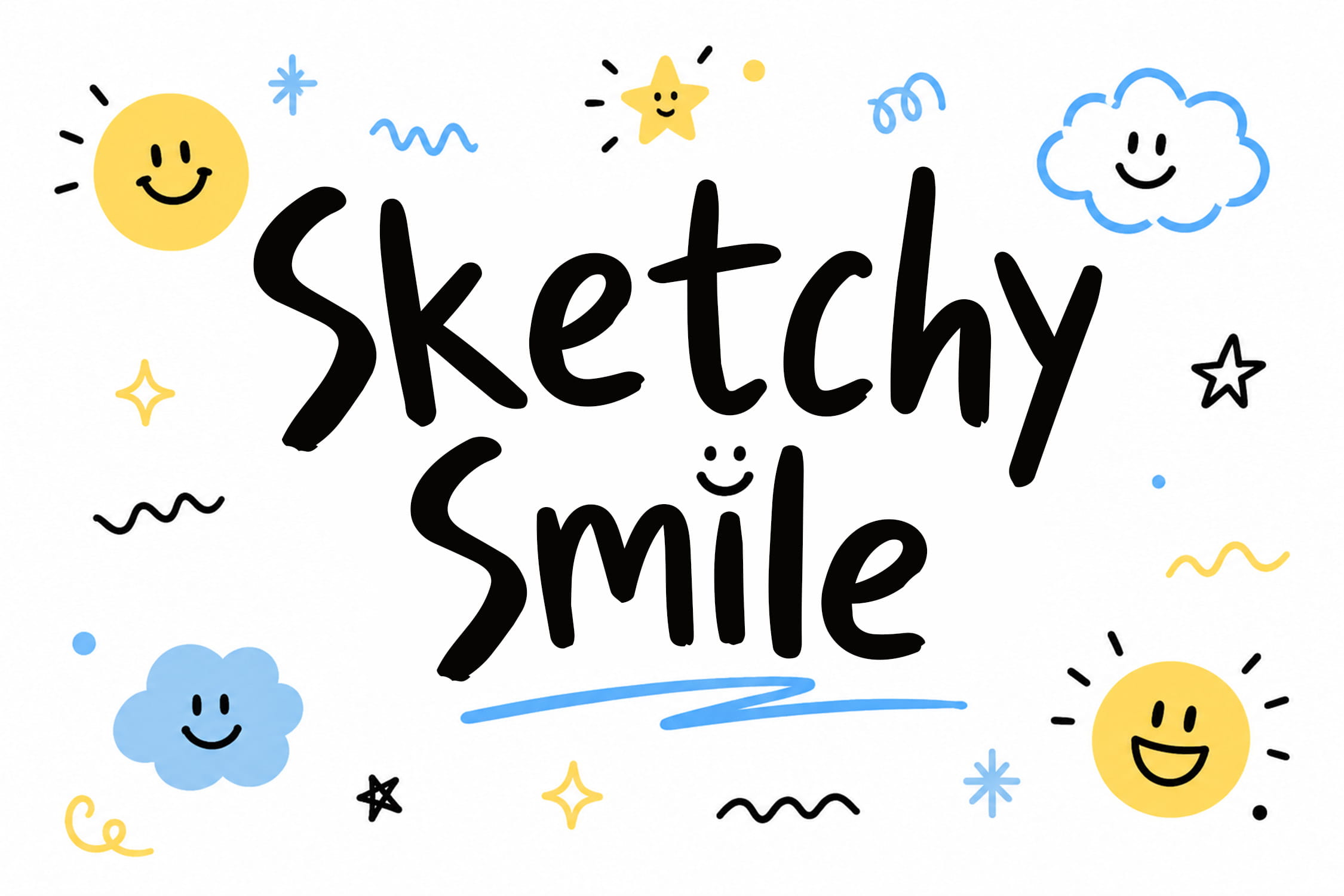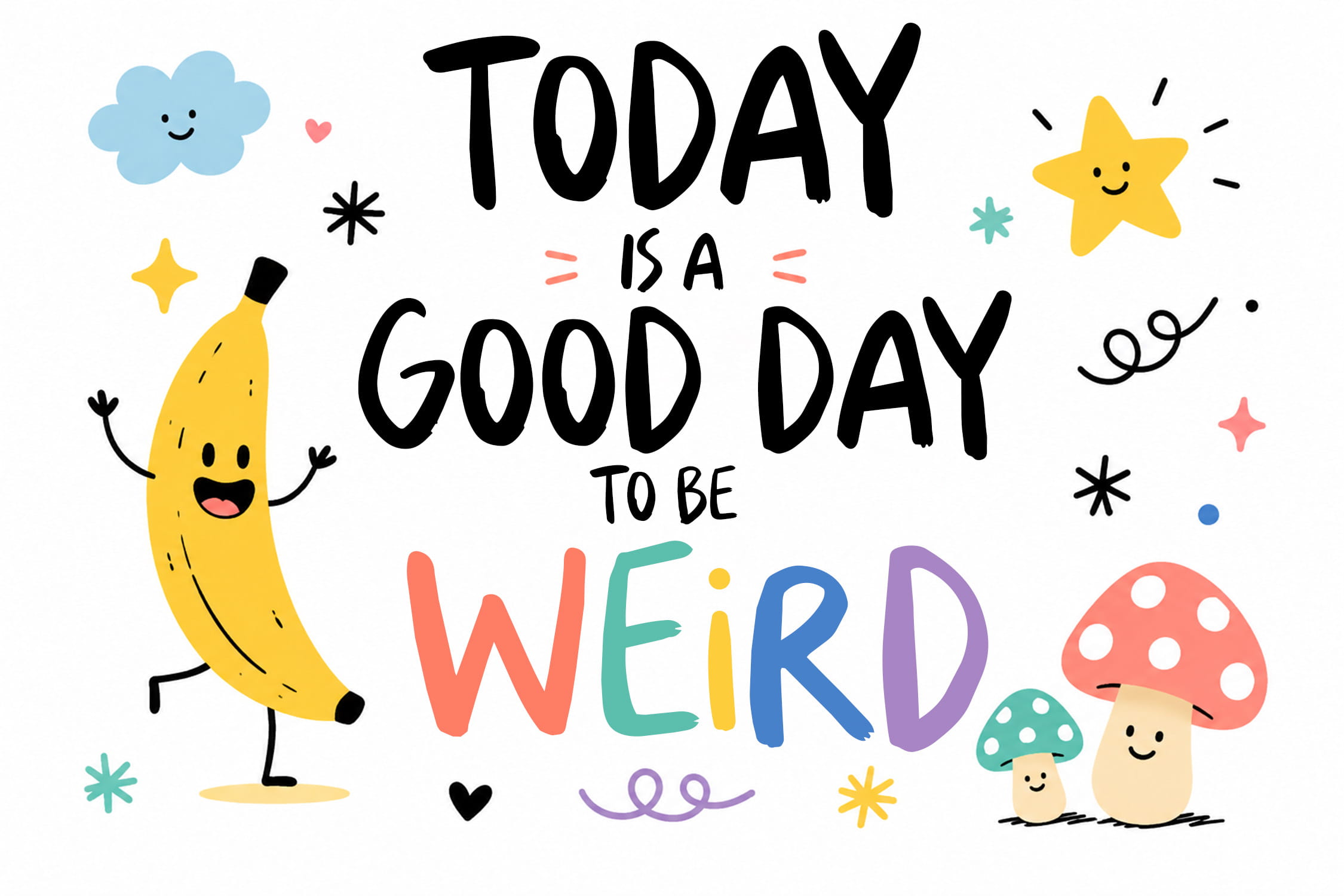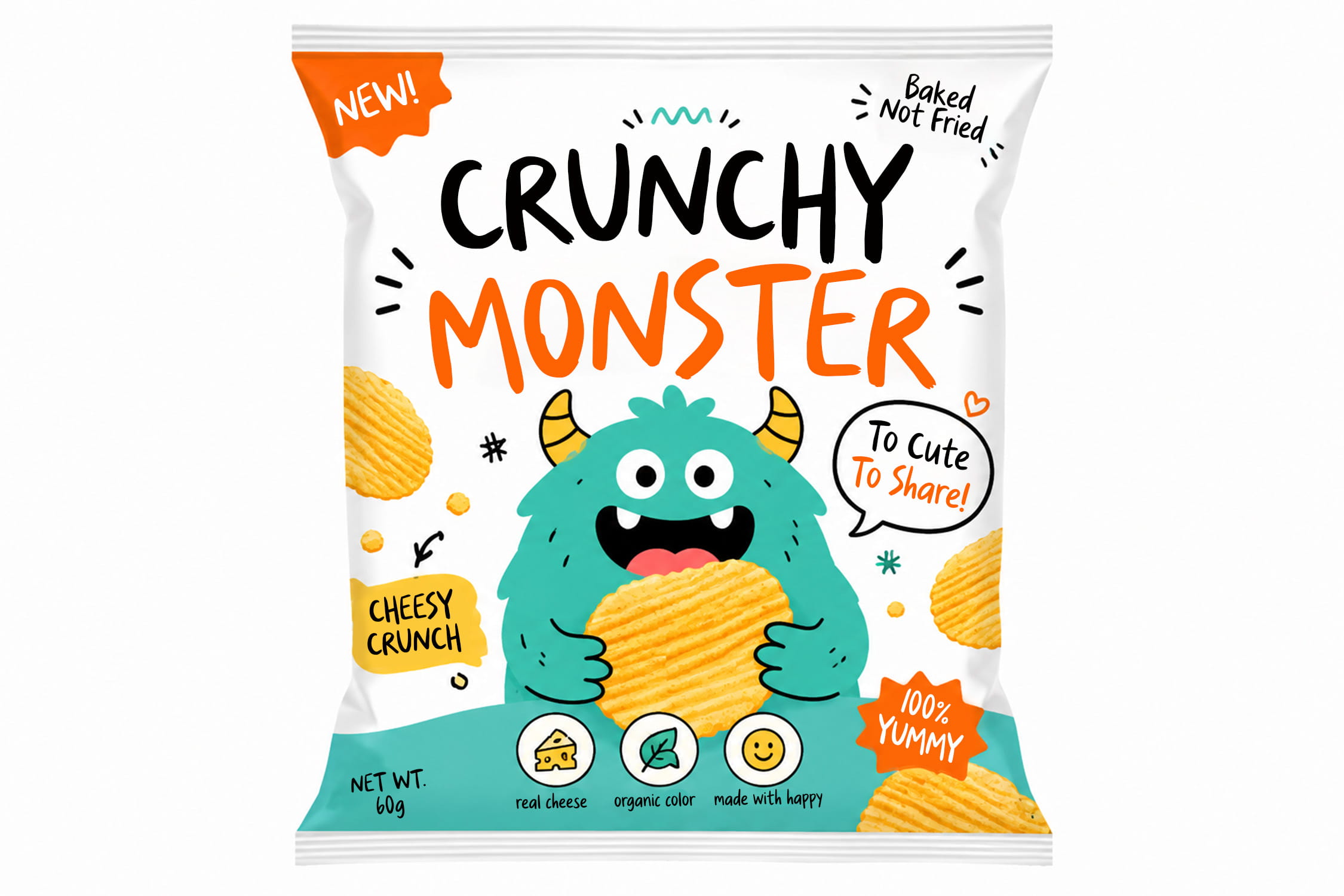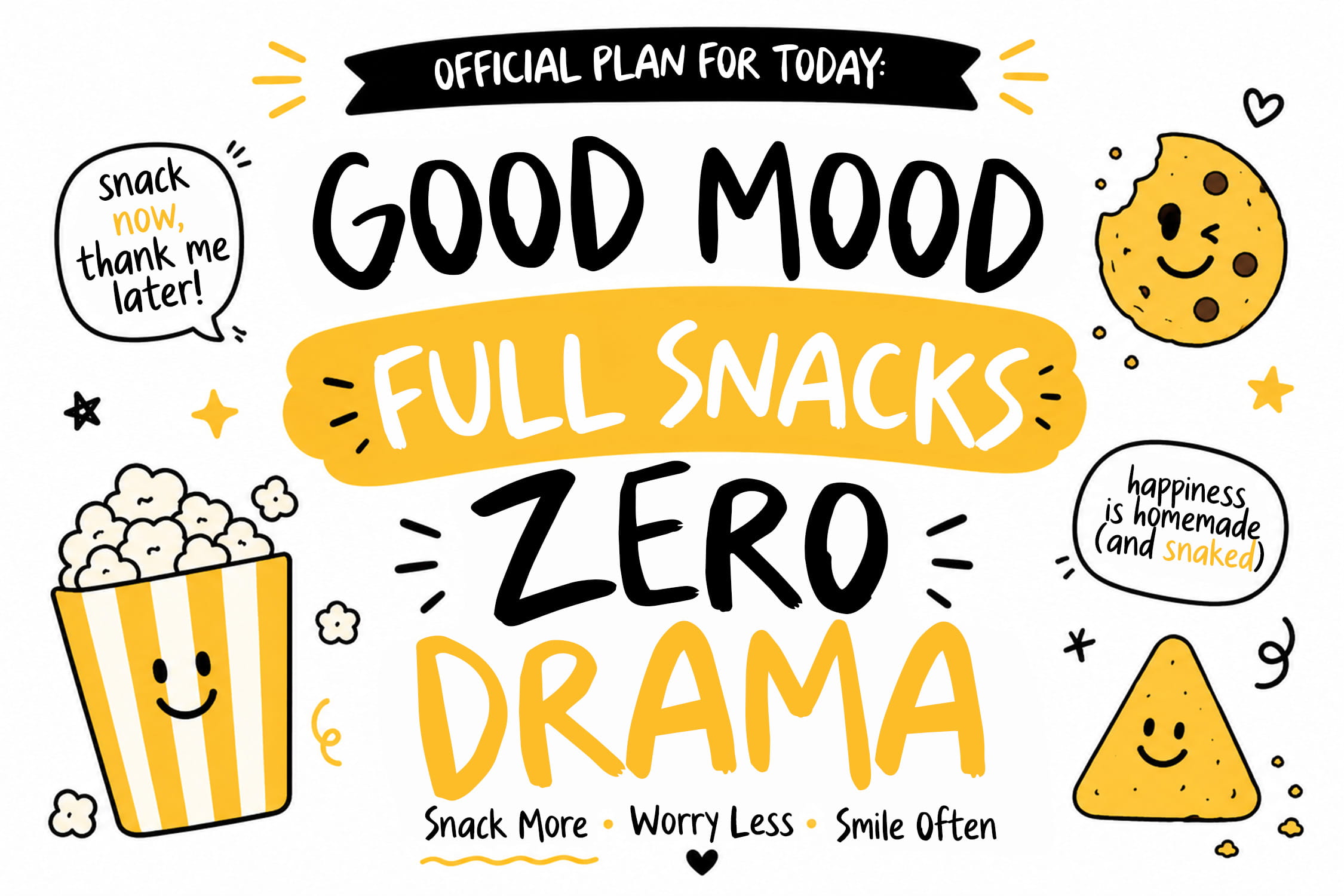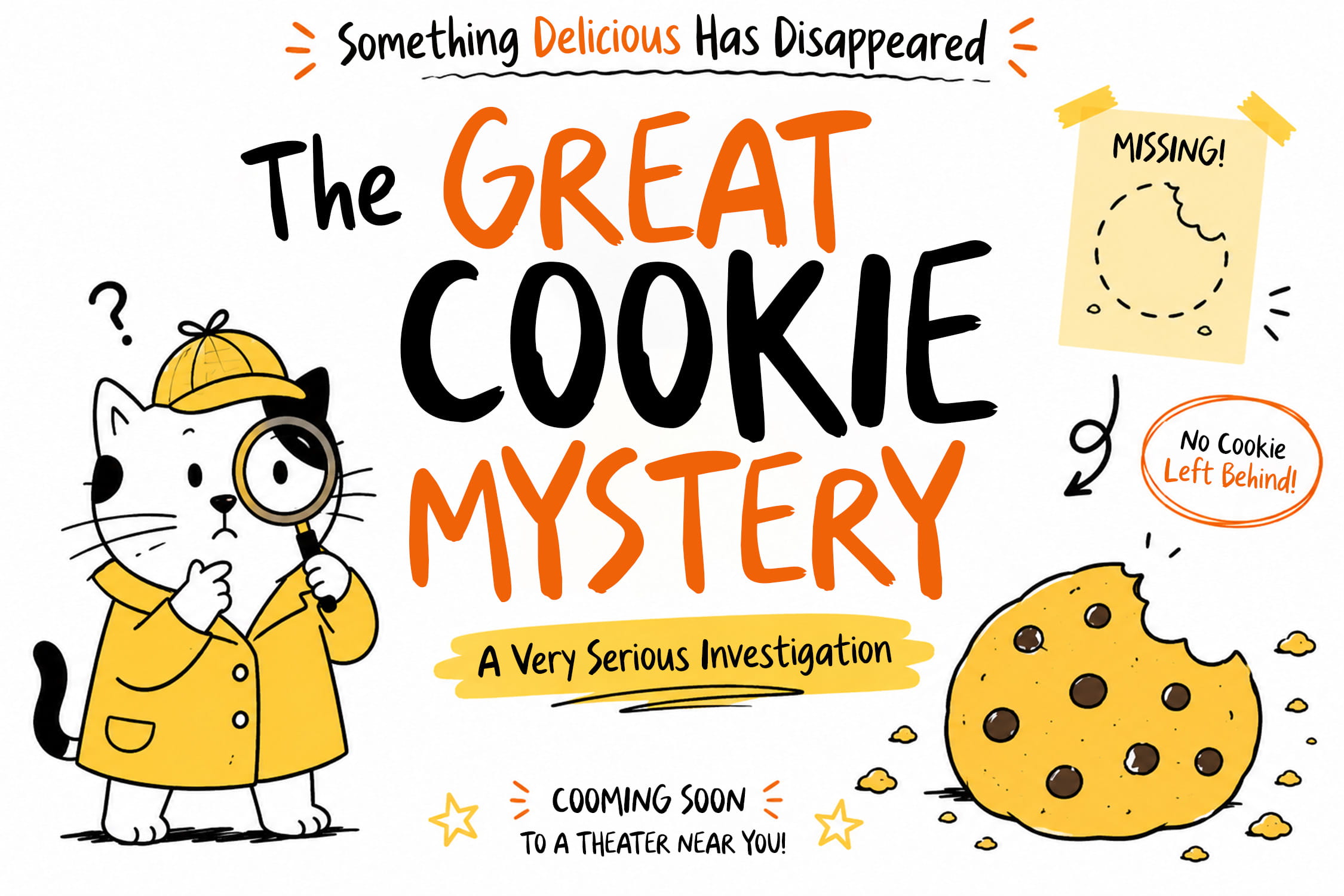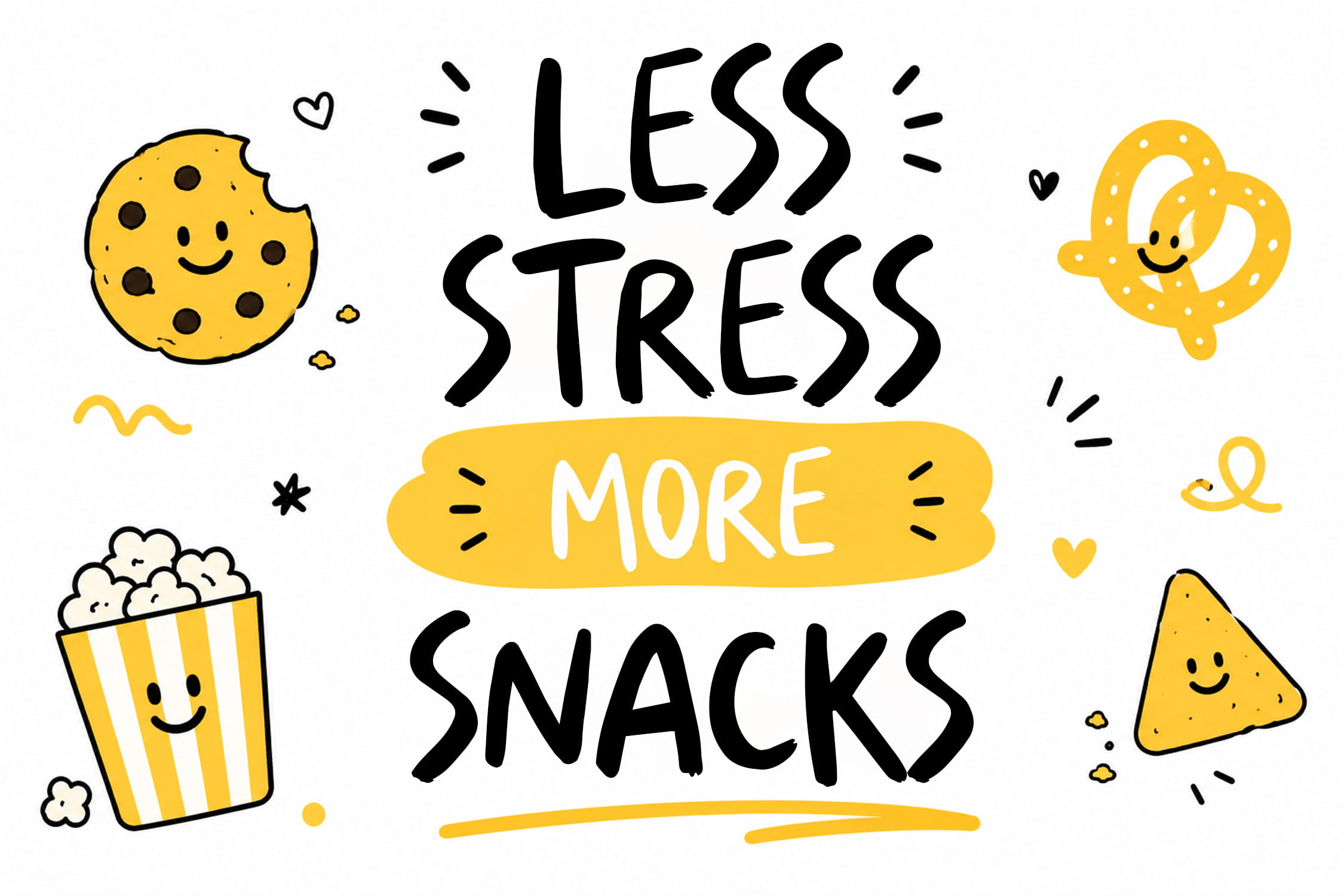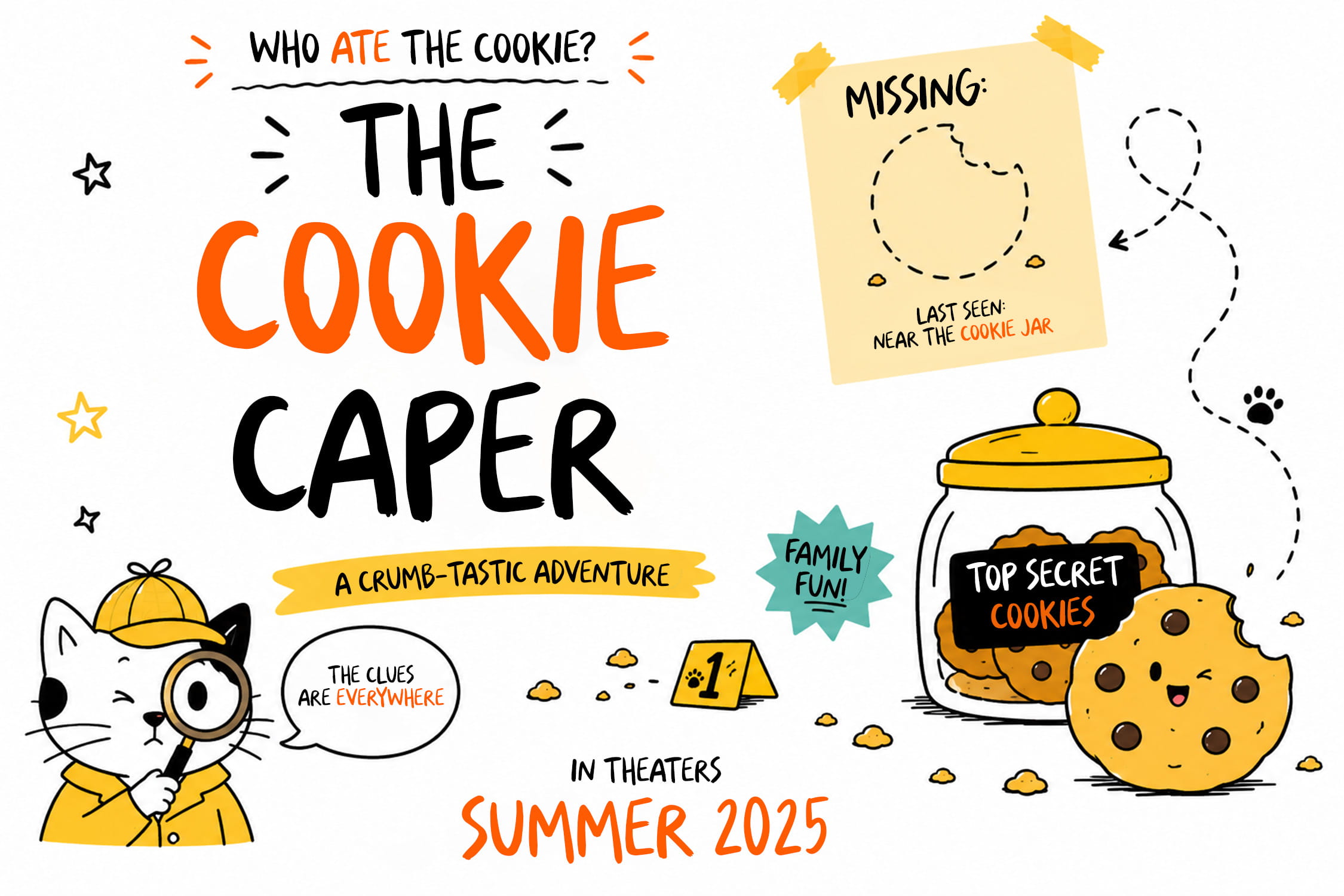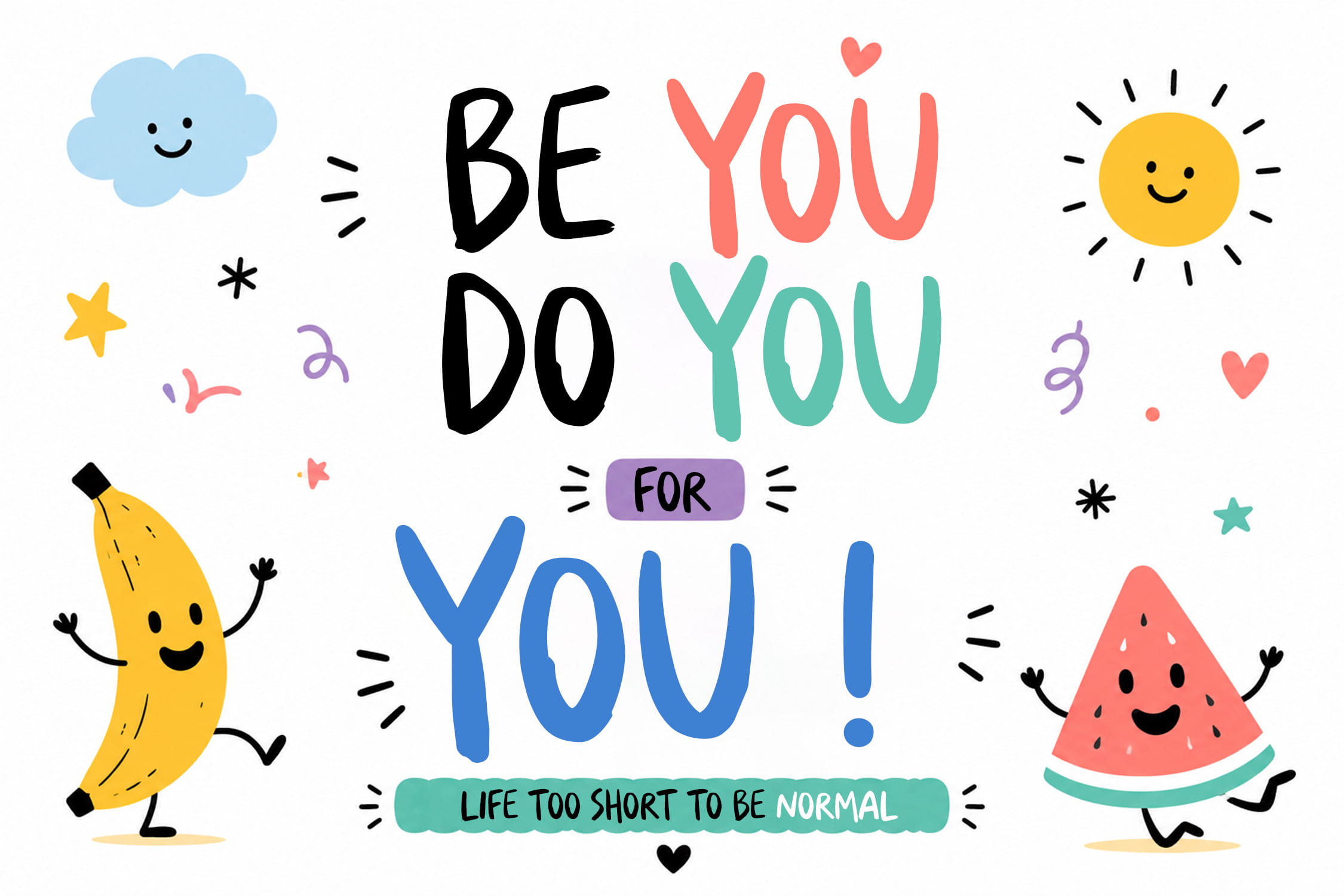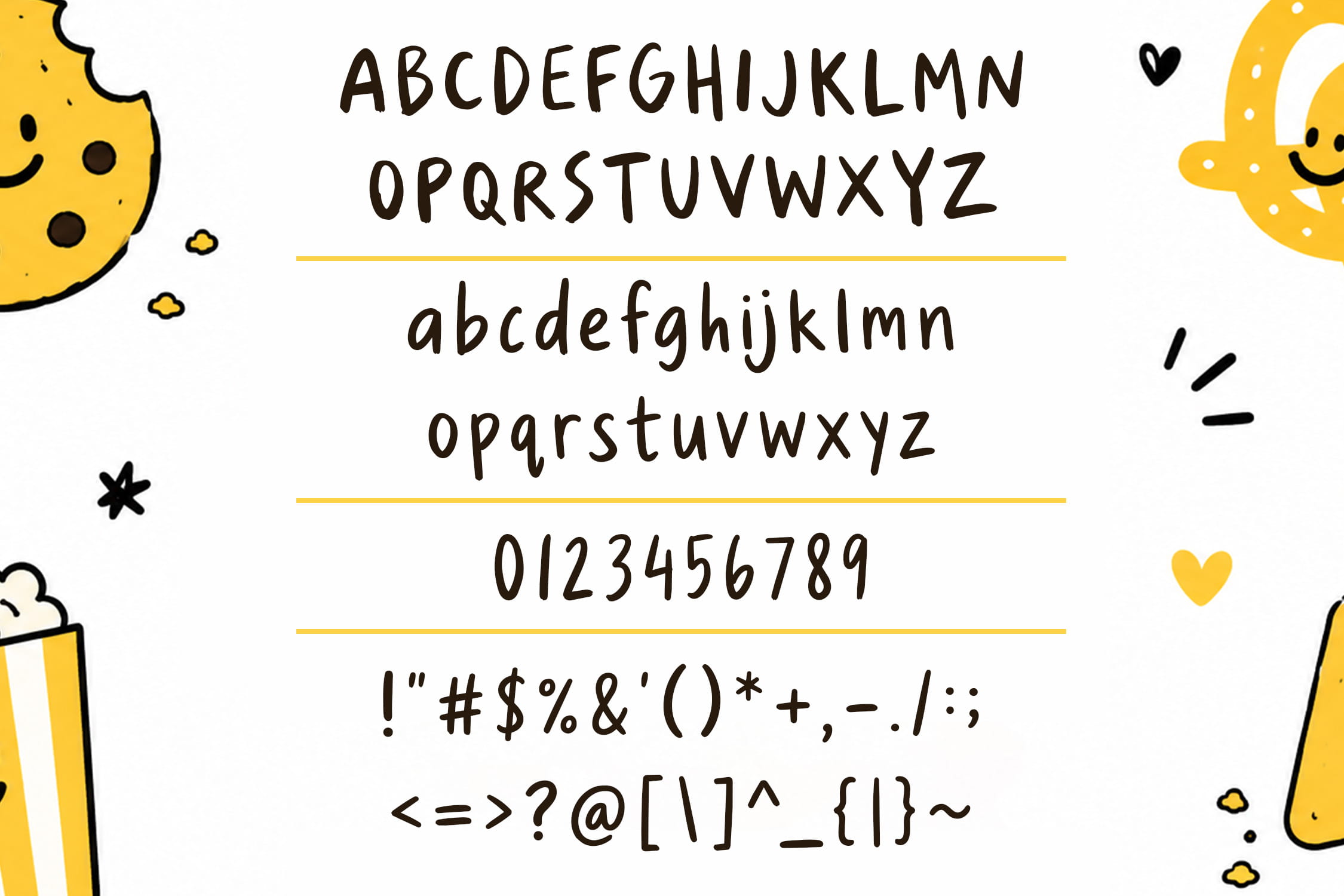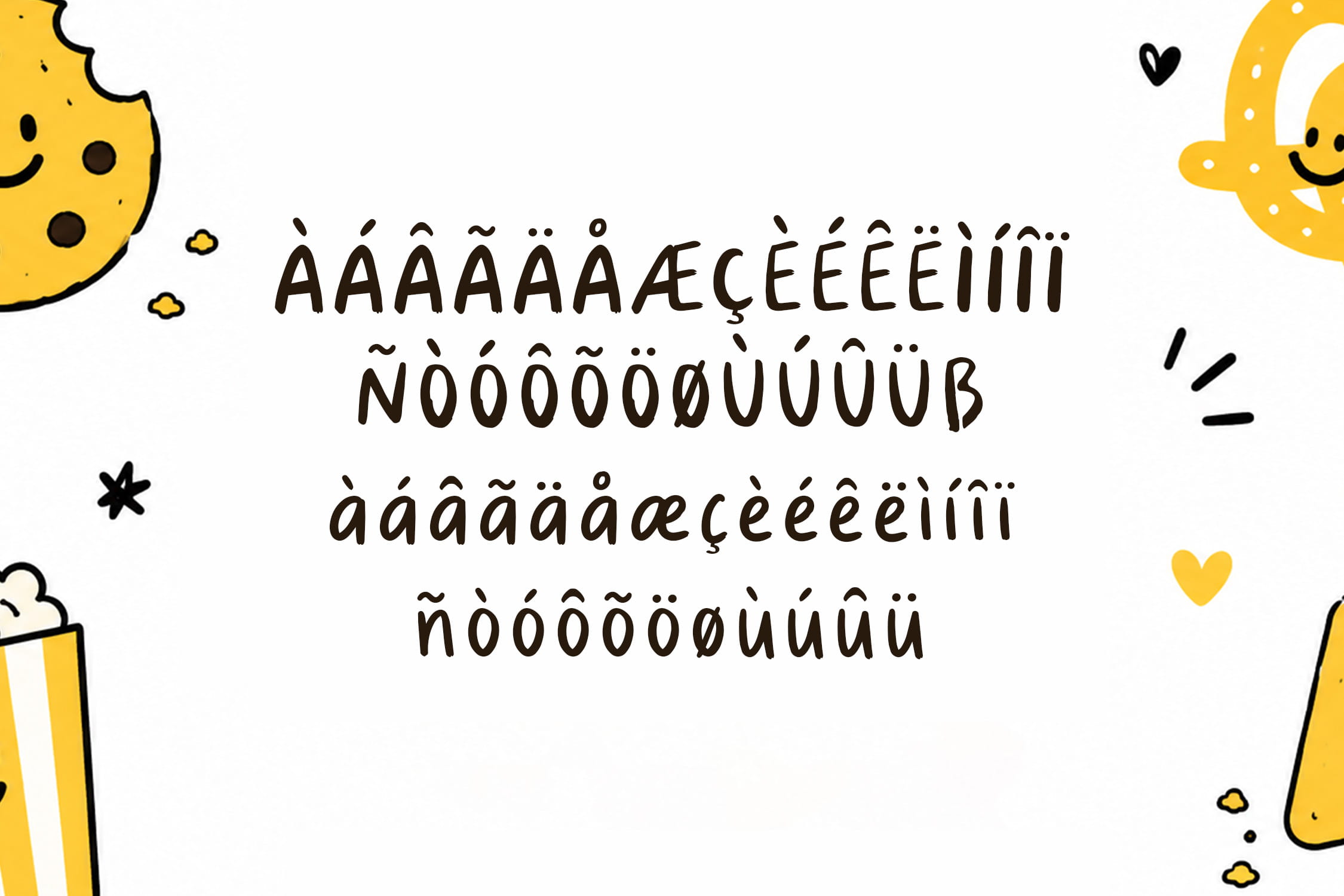
Sketchy Smile – Playful Font
Sketchy Smile is a fun and cheerful handwriting display font inspired by playful doodles, happy moments, and childlike creativity. Featuring bold, hand-drawn letterforms with an organic and friendly feel, this font brings warmth, positivity, and personality to any design project.
Designed to capture the joy of everyday life, Sketchy Smile is perfect for projects that need a casual, approachable, and eye-catching typographic style.
Ideal for posters, children’s products, snack packaging, greeting cards, social media graphics, merchandise, and playful branding.
- Uppercase A–Z
- Lowercase a–z
- Numbers (0–9)
- Punctuation
- Multilingual Support
Key Features
- Playful hand-drawn letterforms
- Casual and friendly handwriting style
- Bold and highly readable display font
- Fun doodle-inspired personality
- Perfect for kids, food, and lifestyle projects
- Suitable for both print and digital applications
Perfect For
- Children’s books & educational materials
- Snack & food packaging
- Posters & promotional graphics
- Greeting cards & party invitations
- Merchandise & apparel design
- Social media content
- Playful branding & logo design